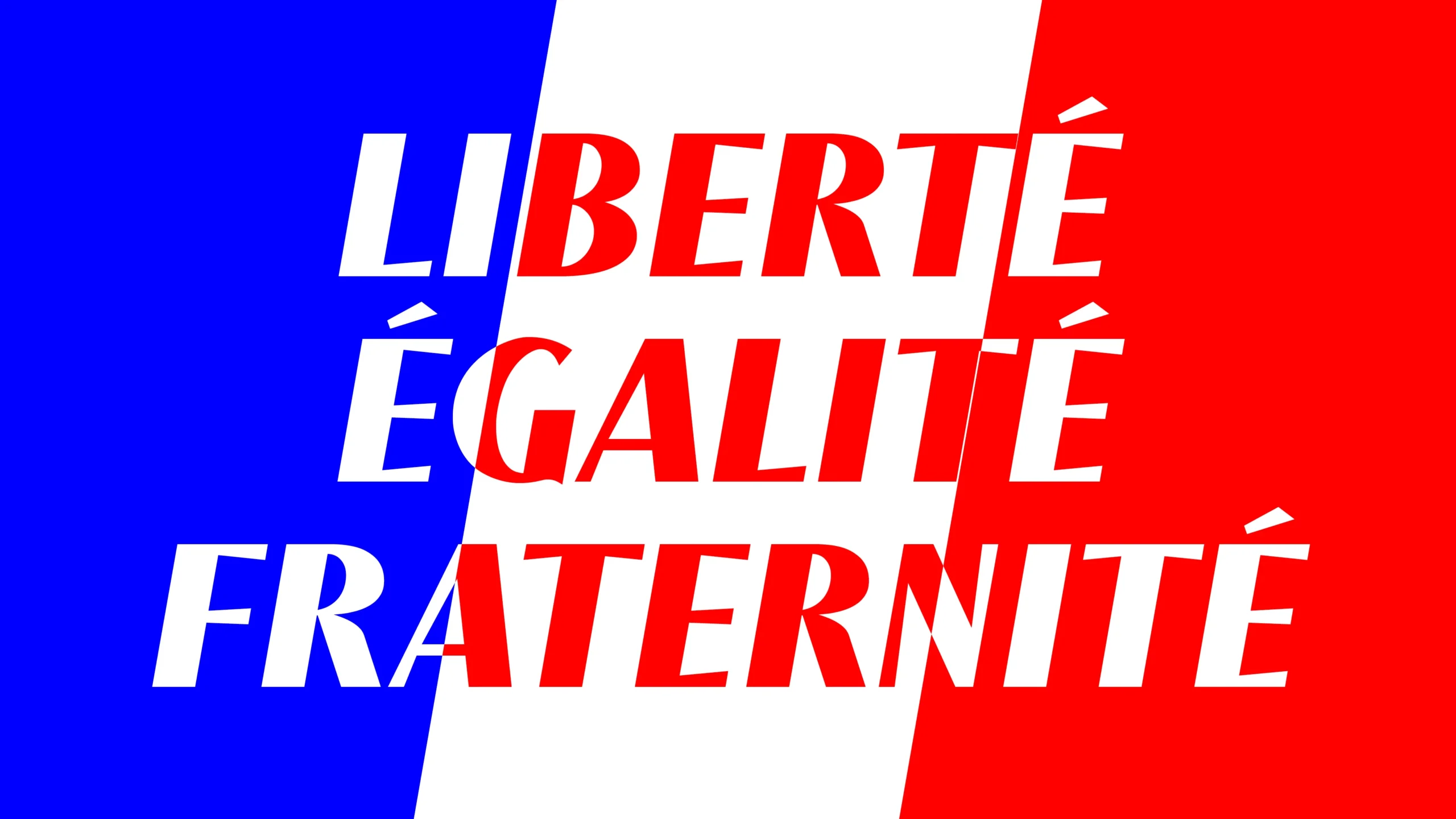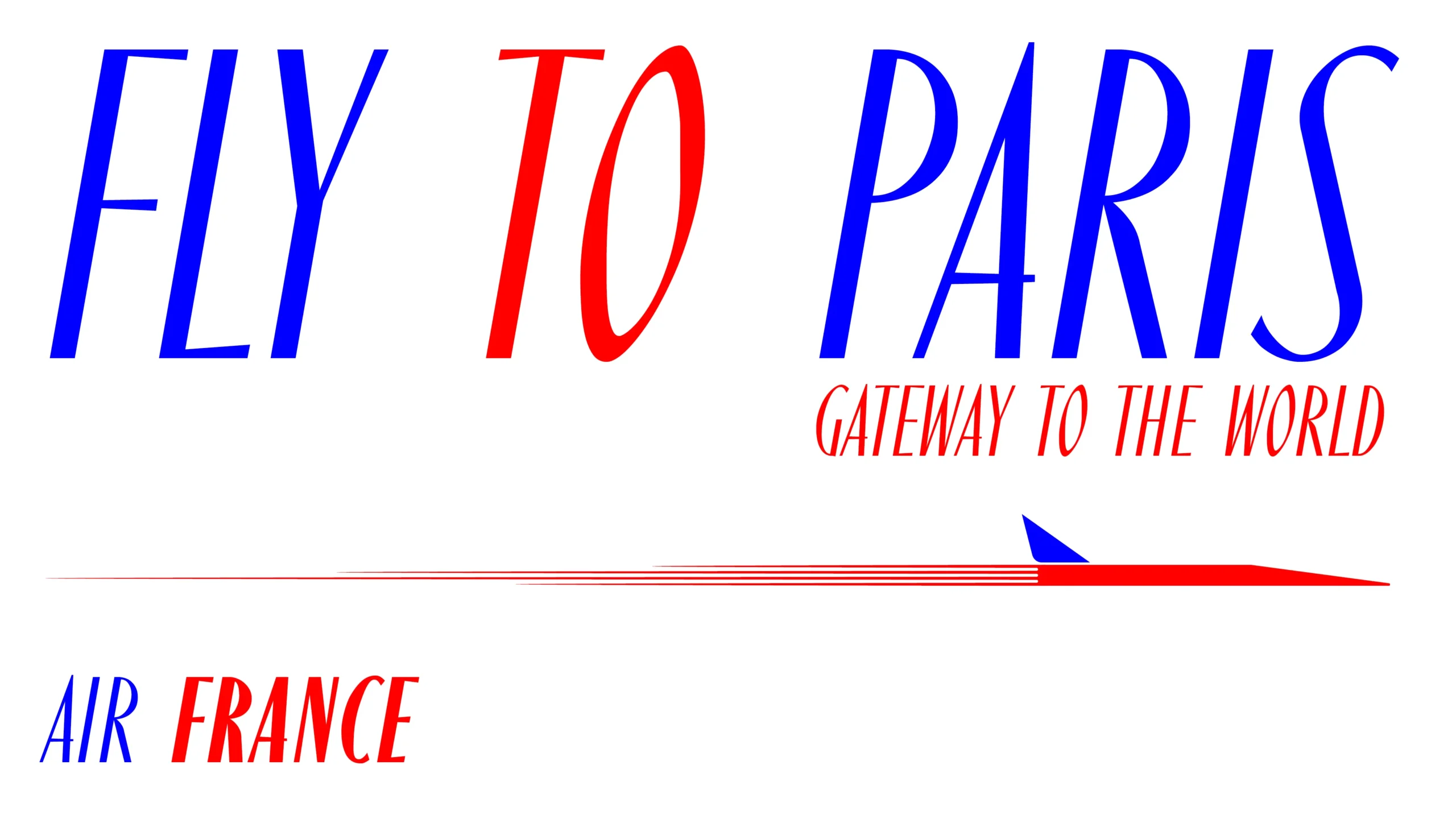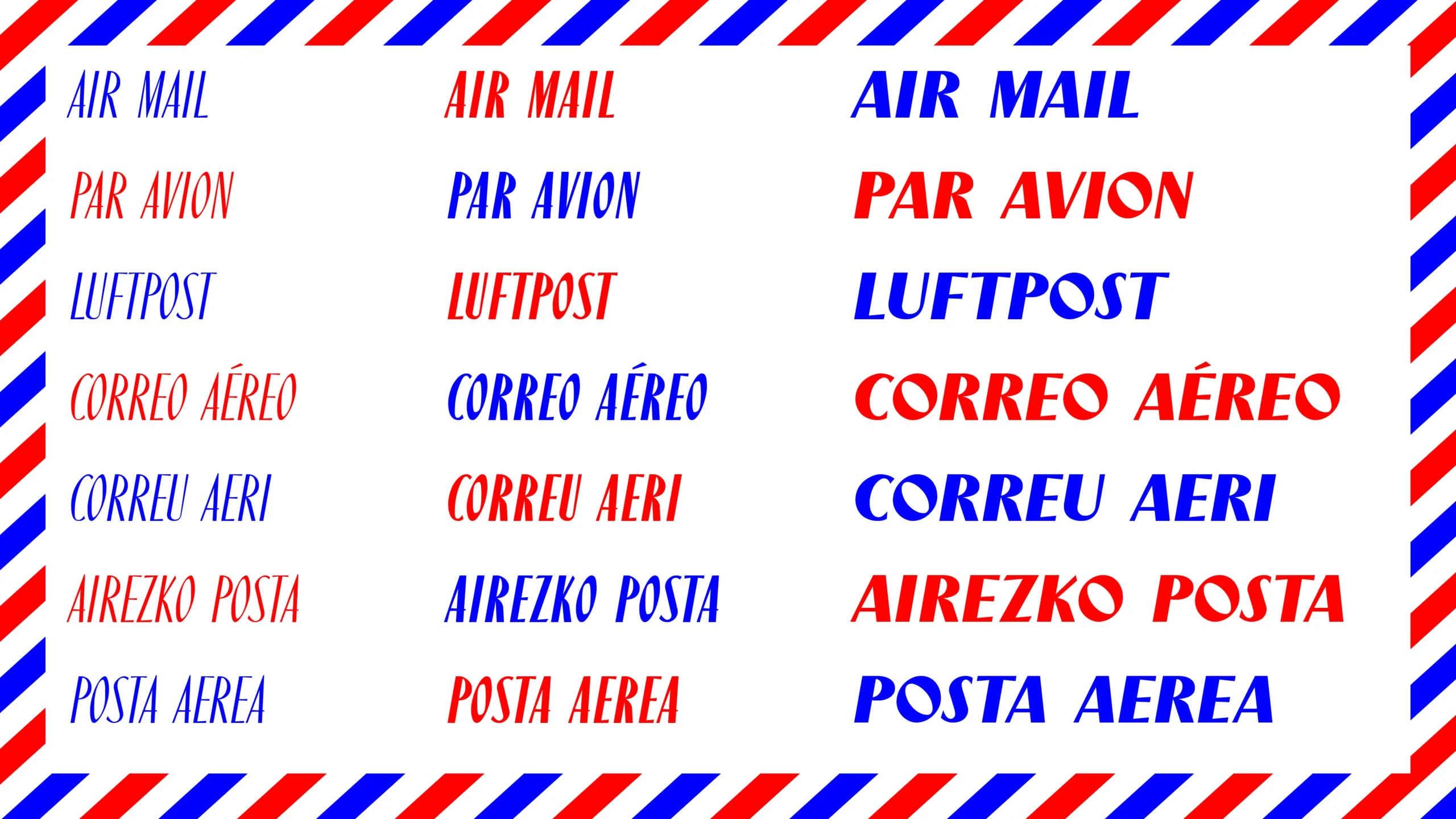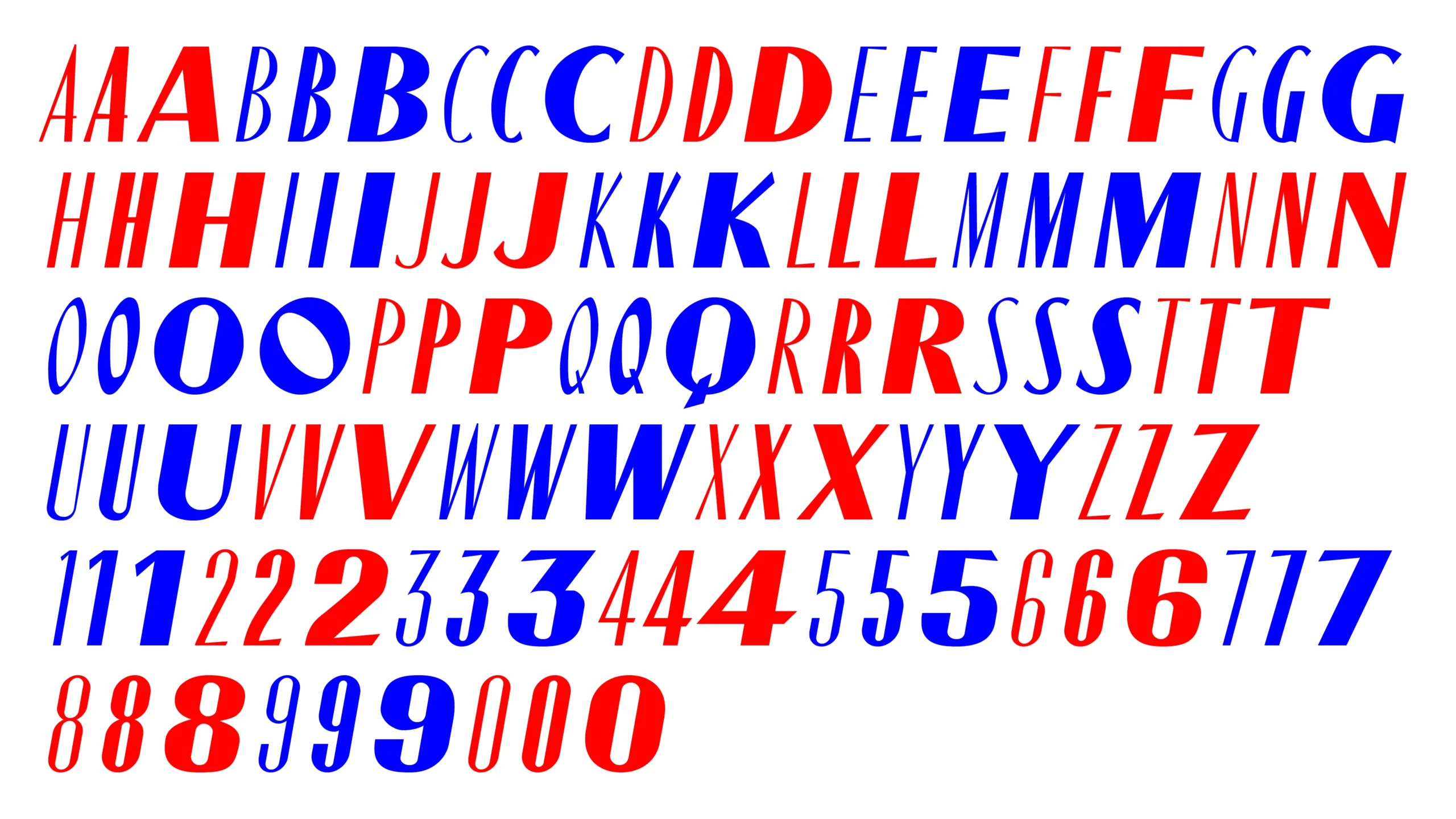
Paris
- Designer
- Enric Crous-Vidal
- Foundry
- Bauersche Giesserei
(Bauer Types) - Year
- 1953
- Digitalisation
- Neufville Digital
- Publisher
- Bauer Types
- Year
- 2005
DESCRIPTION
Paris is a display typeface designed in 1953 by Enric Crous-Vidal. Expressive, rhythmic, and deeply informed by calligraphic movement, the design brings warmth and vitality to mid century modernist typography
Its forms combine elegance with spontaneity through subtle modulation and carefully balanced proportions, creating a visual language that feels both refined and alive. In Paris Bold, two alternate capital O characters were originally included, one featuring a pronounced 45° stress. Both are preserved in the digital version, maintaining the richness and flexibility of the original design.
Oh La La!
Paris, a sophisticated uppercase typeface with Parisian spirit.
Paris in use
Paris Family
- Paris Light
- Paris Medium
- Paris Bold
Context
Paris was designed in 1953, at a moment when European graphic design was undergoing a profound transformation. In the post war years, modernist typography increasingly embraced rational structures, geometric precision, and functional clarity as universal principles of communication.
Within this landscape, Enric Crous-Vidal developed his Grafía Latina1 approach, pursuing a more expressive and human vision of typography. Rather than reducing letterforms to pure construction, his work explored rhythm, movement, contrast, and visual tension as essential qualities of reading and perception.
Paris reflects this search through forms that feel both sophisticated and alive. Its dynamic modulation and calligraphic energy challenge the strict neutrality that defined much of mid century design, introducing instead a sense of warmth, personality, and cultural depth.
Created during a period of intense experimentation across typography, publishing, and advertising, Paris stands as a distinctive example of how type design could remain elegant and functional while still conveying emotion and visual character.
1 Grafía Latina was a typographic concept developed by Enric Crous Vidal that proposed an alternative to rigid modernist typography, drawing inspiration from the visual culture, rhythm, ornament, and expressive traditions of Southern European and Mediterranean countries.
Biography
Enric Crous-Vidal was born in Lleida, Spain, in 1908. From an early age, he developed broad artistic and intellectual interests, becoming involved in the Catalan avant garde scene during the 1930s. Around 1933, he became founder and artistic director of the magazine Art, a publication that promoted contemporary artistic and graphic experimentation.
The Spanish Civil War profoundly affected his life and career. After serving in the Republican Army, he went into exile in France, where during the German occupation he joined the French Resistance, producing forged documents and false identification papers.
Following the end of the Second World War, he moved to Paris and began working at Draeger Frères, a renowned French printing house celebrated for its technical excellence and high quality art publications..
Around 1950, Crous Vidal opened his own studio and began designing typefaces that would define much of his contribution to post war typography. In 1952, he presented a typographic exhibition at the Galerie d’Orsay in Paris, and in 1954 he became Artistic Director of the Fonderie Typographique Française, supported by influential typographer and critic Maximilien Vox1. During the 1950s and 1960s, he developed many of his best known typefaces while advocating for an alternative vision of graphic modernity rooted in expressive and calligraphic principles.
He died in France in 1987, leaving behind a body of work that continues to resonate as a distinctive voice in 20th century European typography.